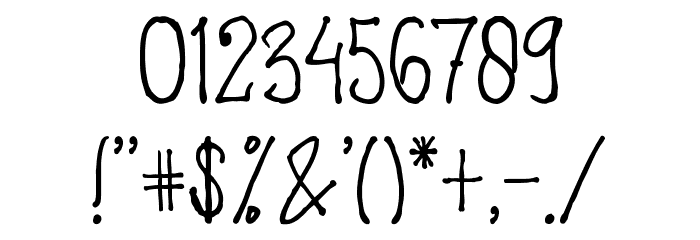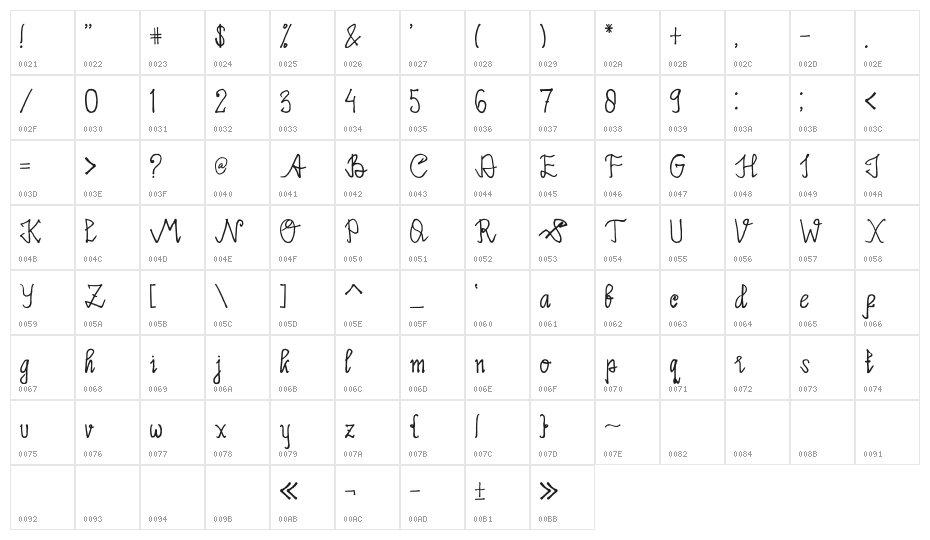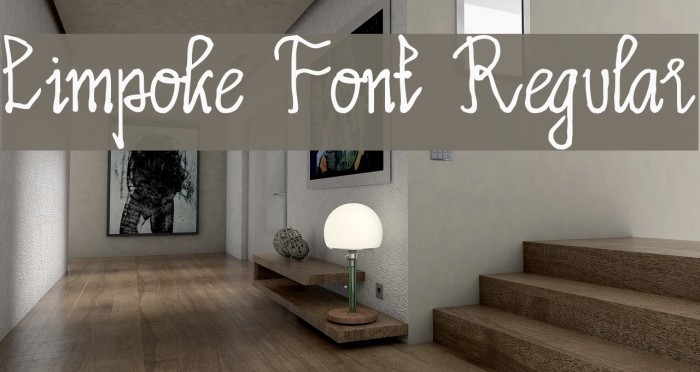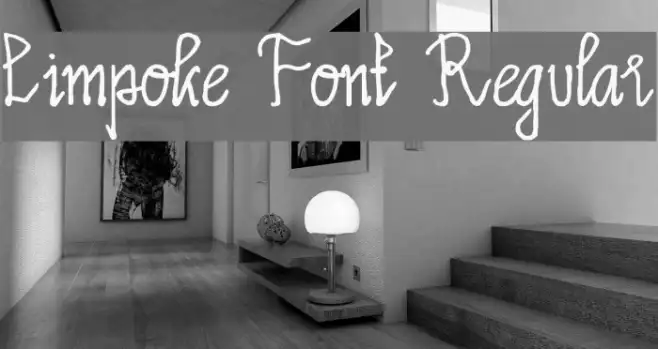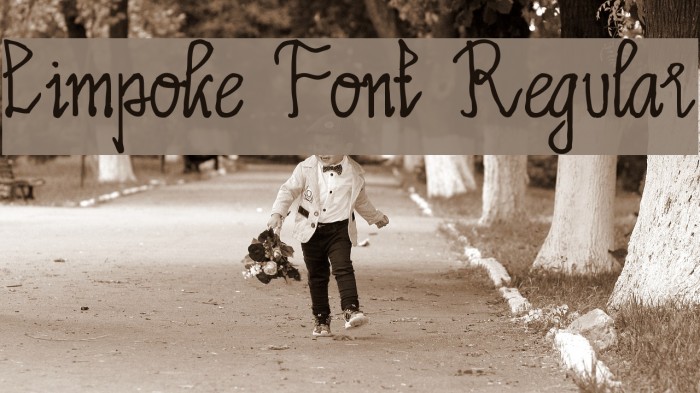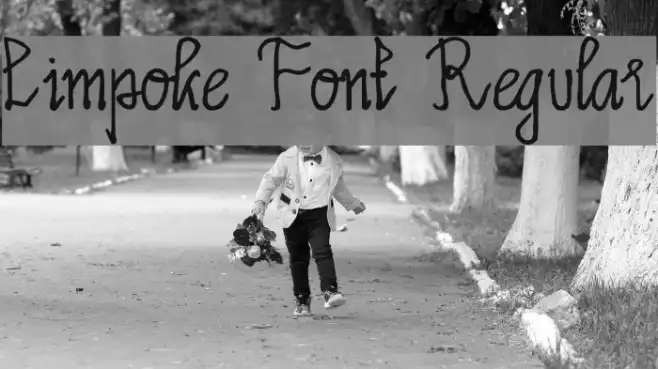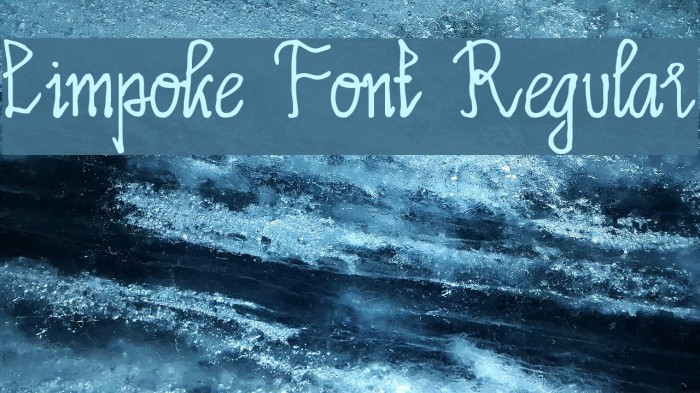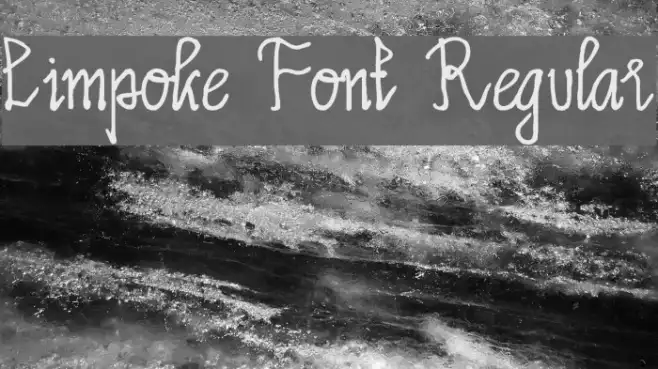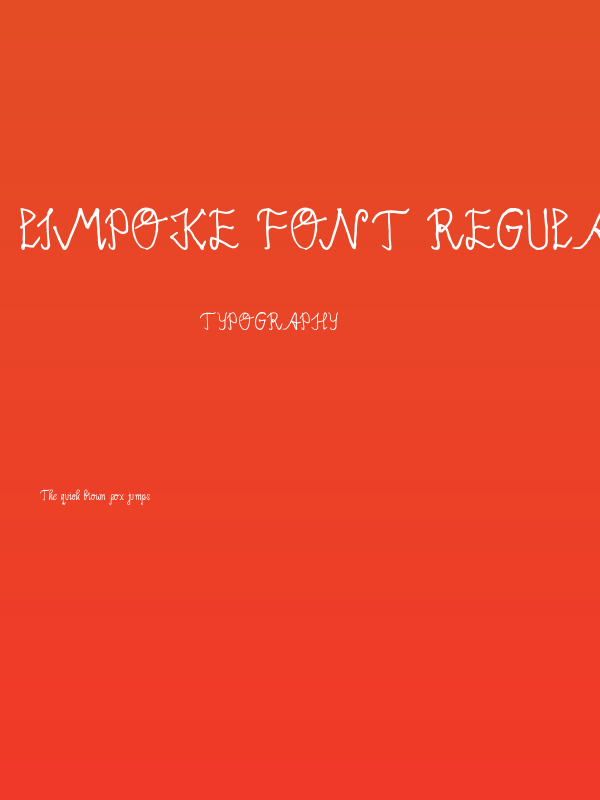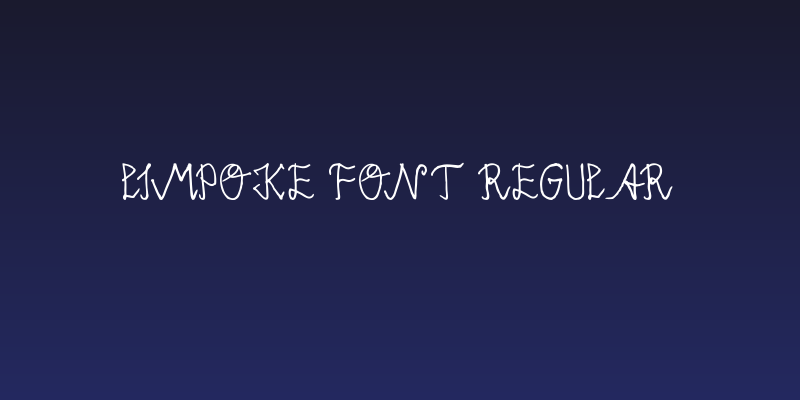
Limpoke Font Regular Font
Limpoke Font Regular Description
This font exhibits a playful and whimsical style, characterized by its handwritten appearance. The letters feature a mix of smooth curves and sharp angles, giving it a dynamic and lively feel. The uppercase letters are bold and distinctive, with unique flourishes that add personality. The lowercase letters maintain a consistent flow, enhancing readability while retaining the font's quirky charm. Numbers and special characters are crafted with the same attention to detail, ensuring a cohesive look across all elements. This font is ideal for projects that require a touch of creativity and individuality.